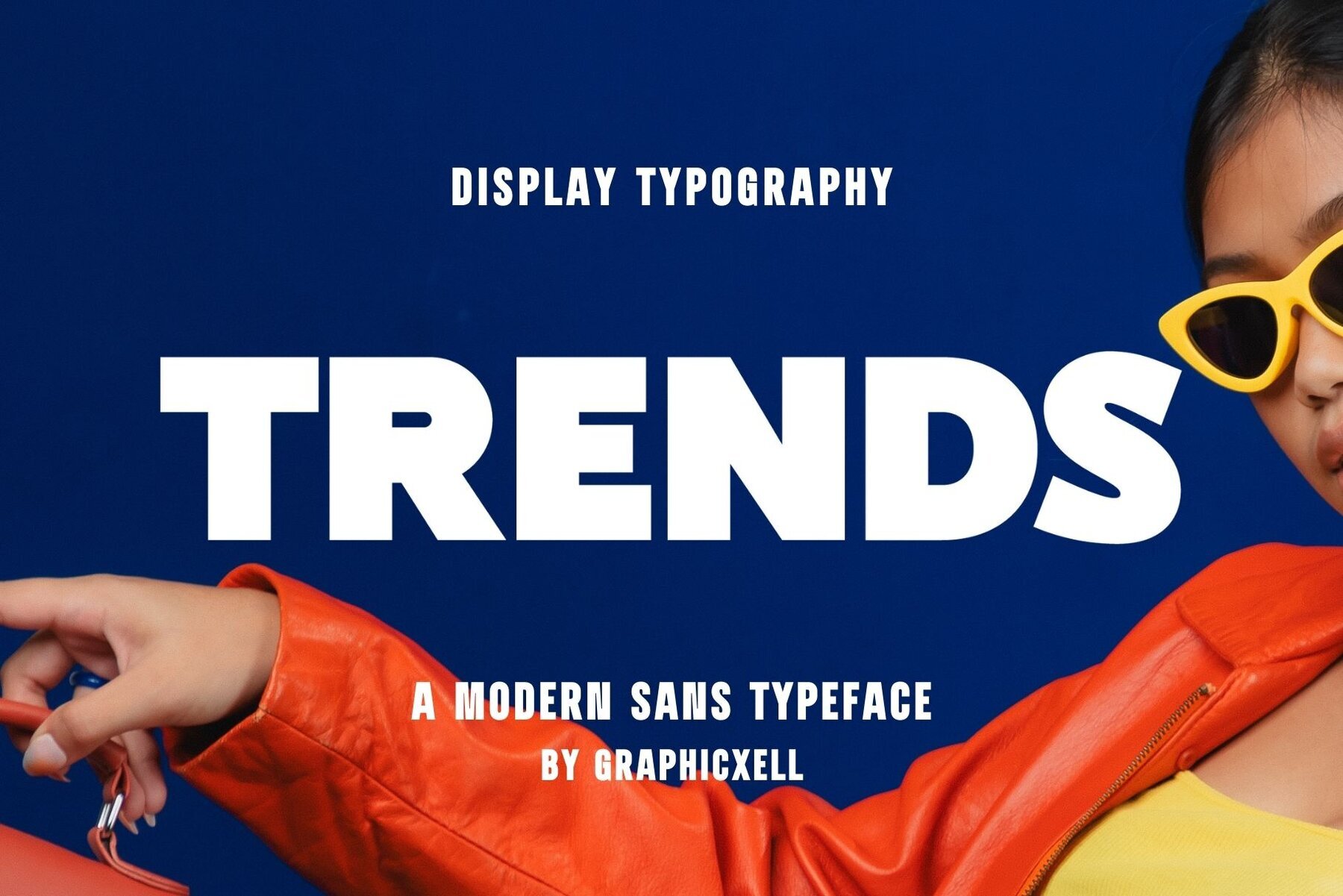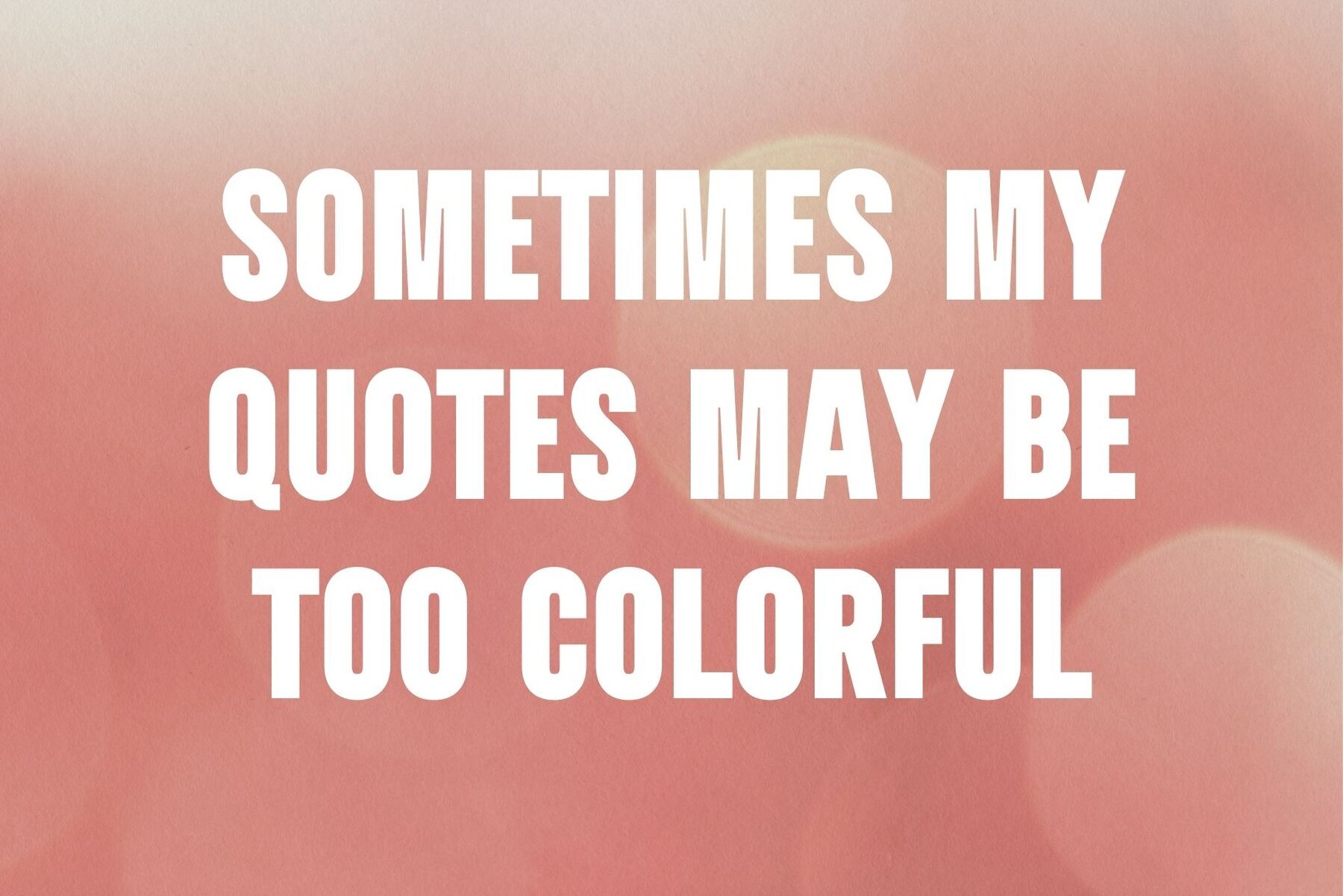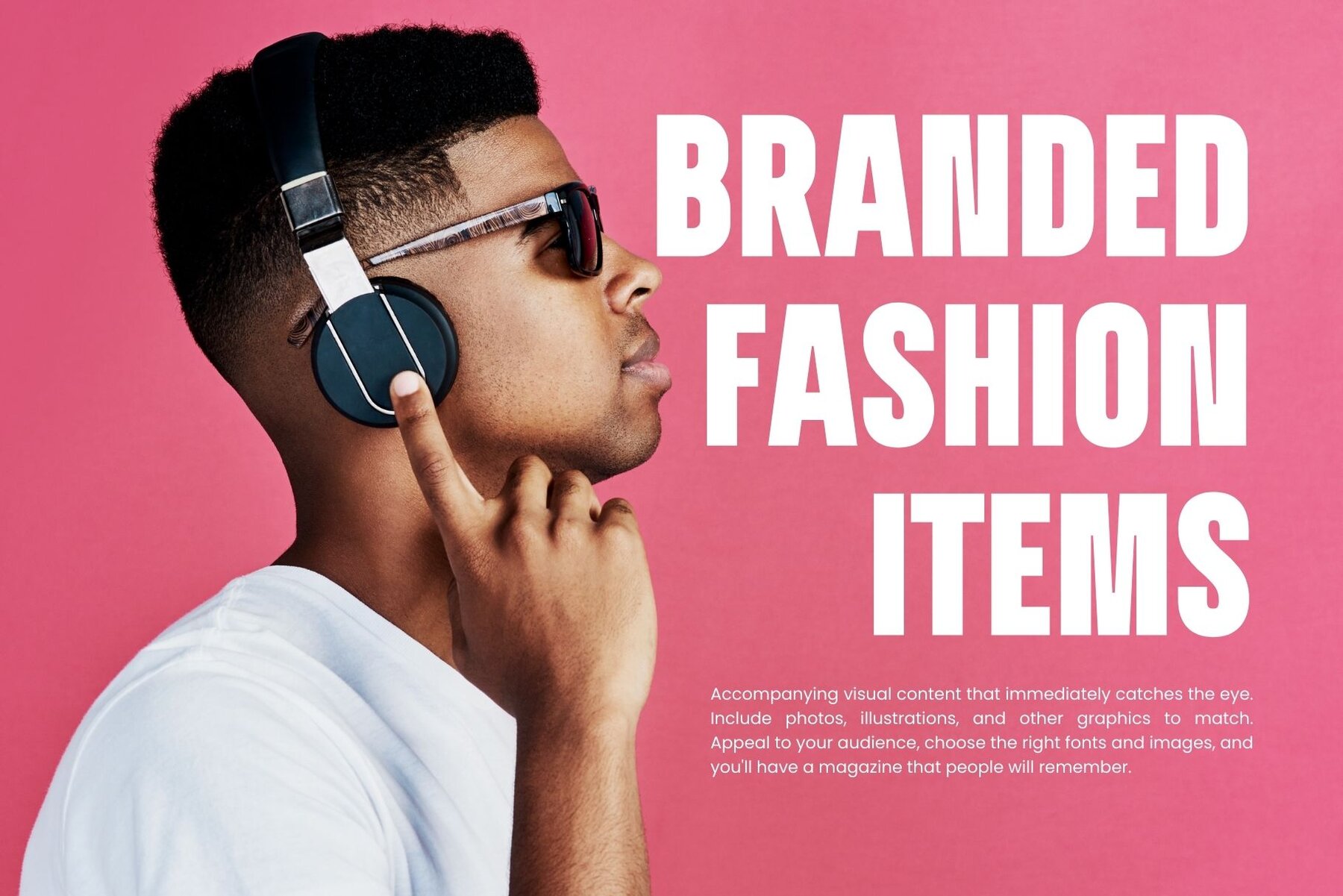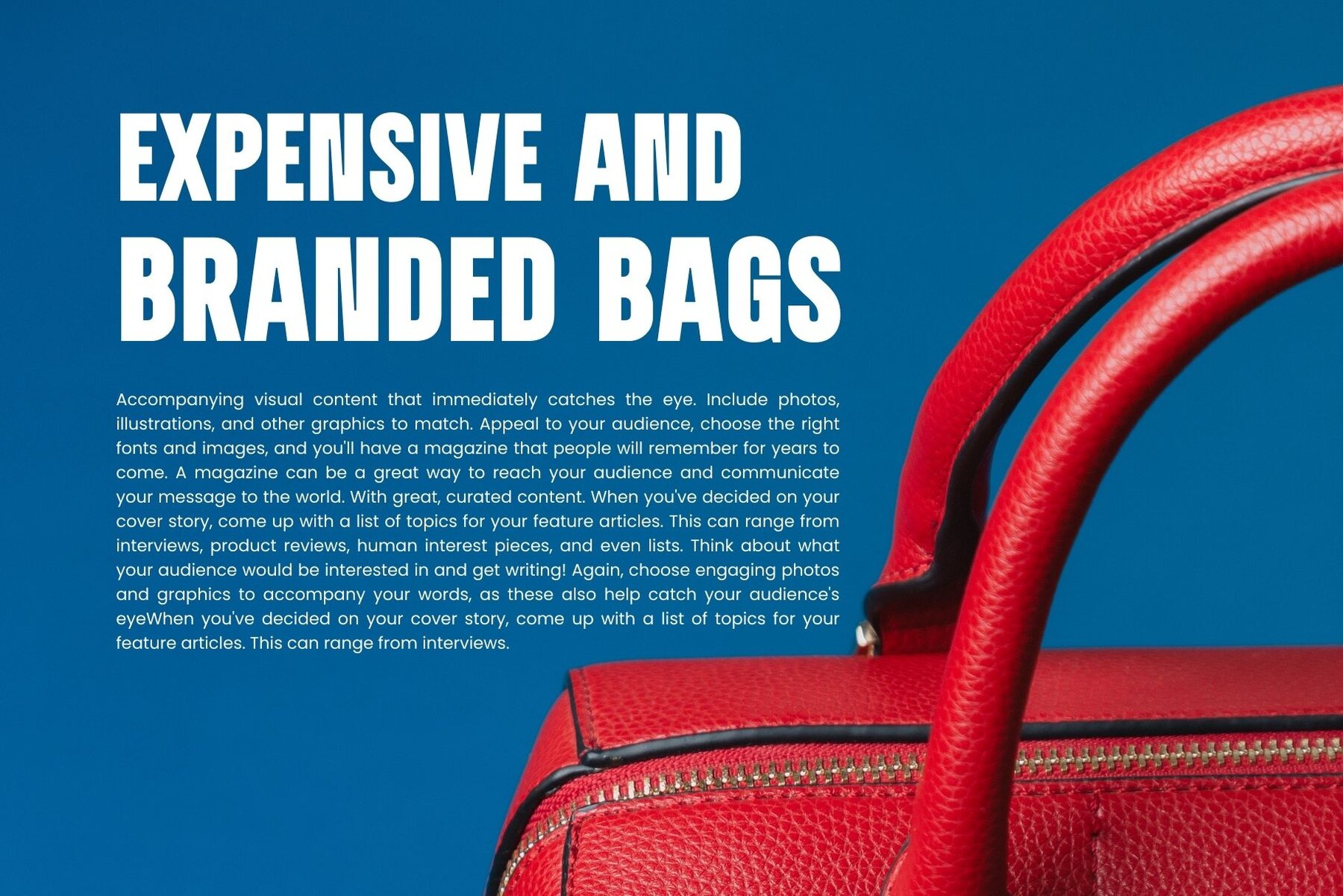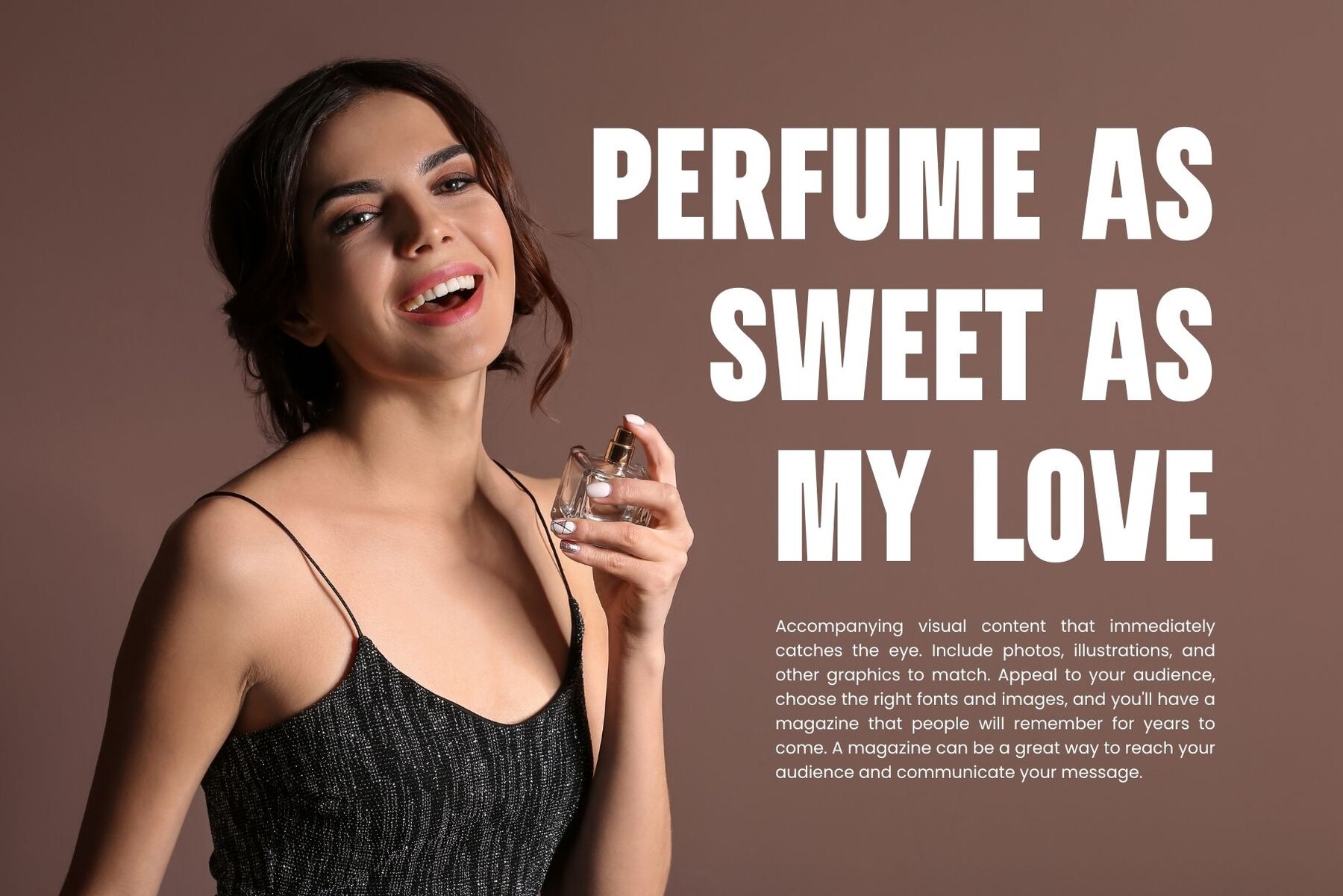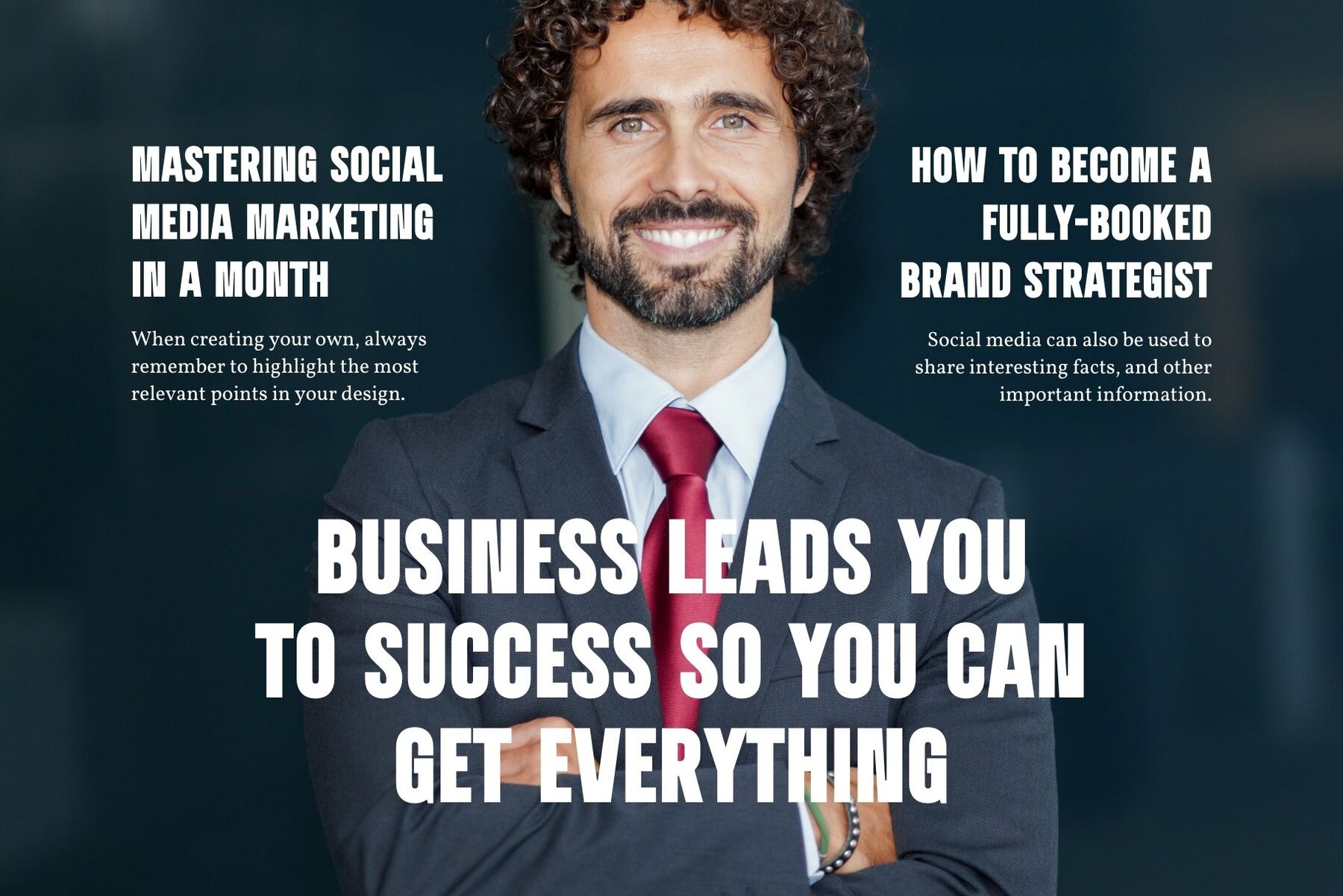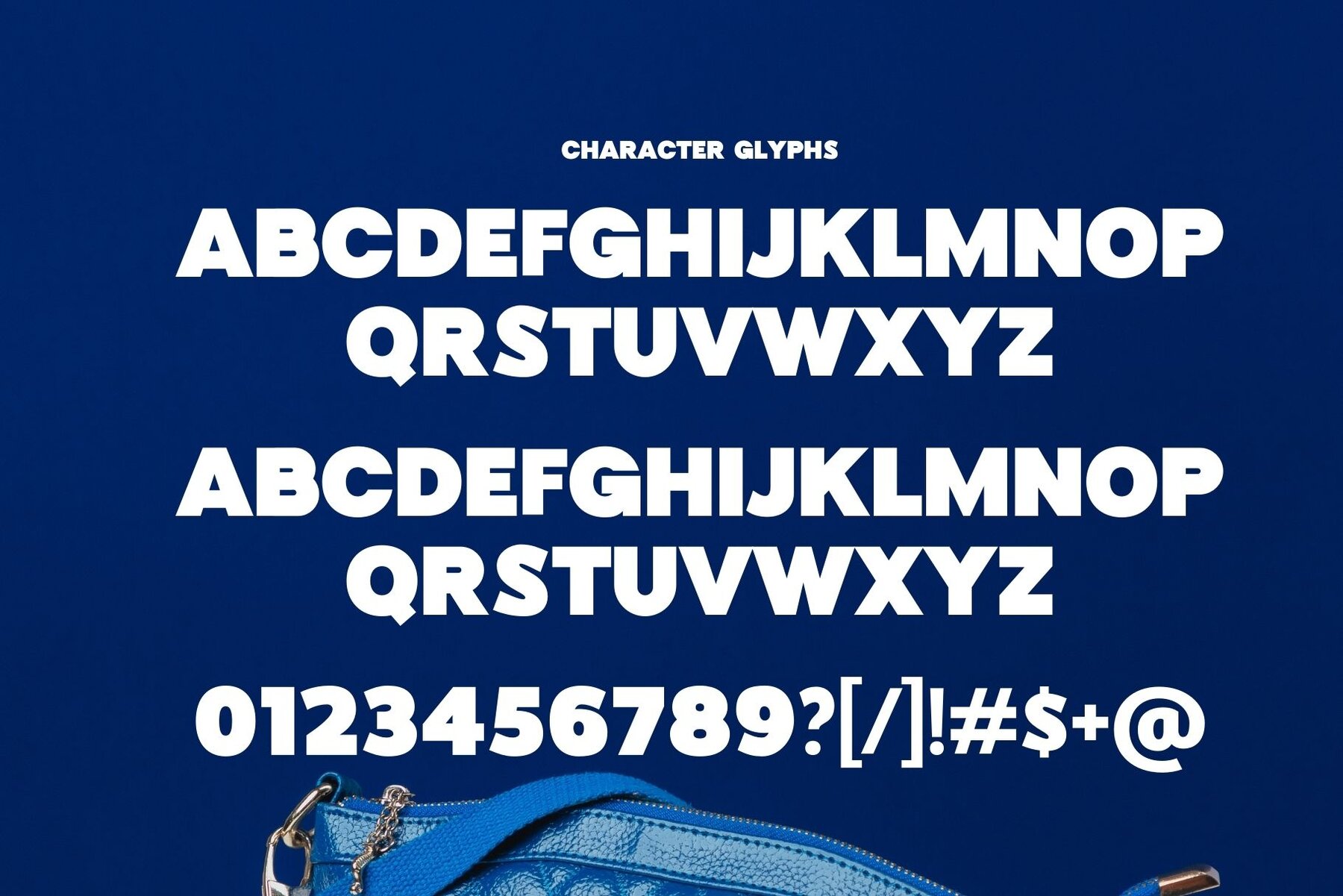
Trends Font
Trends Regular
The 'Trends' collection by Graphicxell draws inspiration from the renowned minimalist aesthetic. It offers an ideal solution for a diverse range of design applications, making it a versatile choice for creative professionals.Trends: Minimalist Logo-Inspired Designs
Perfect for Creative Projects